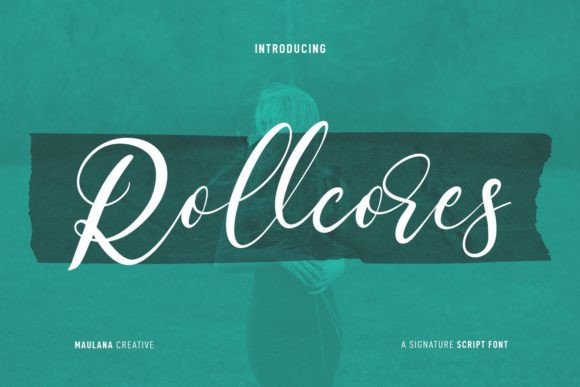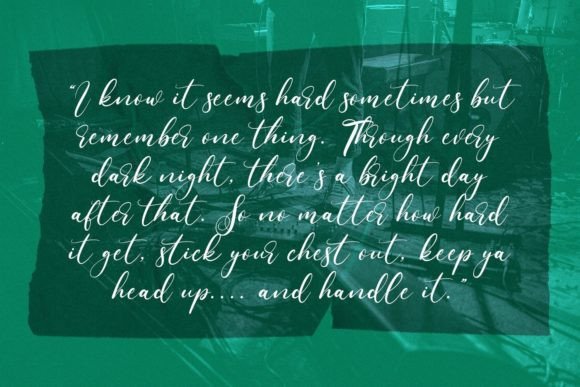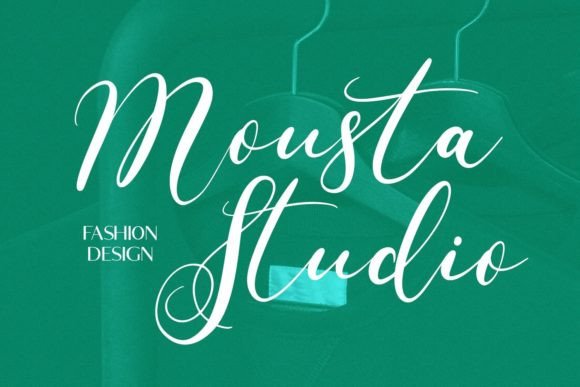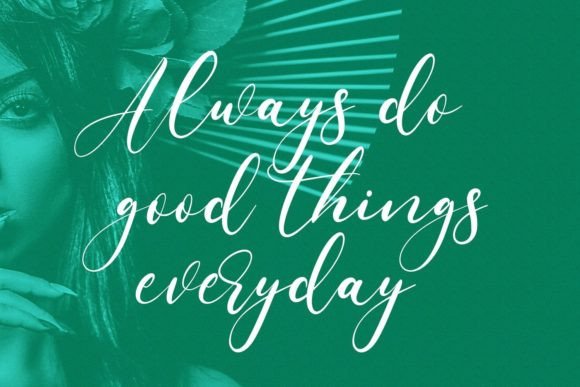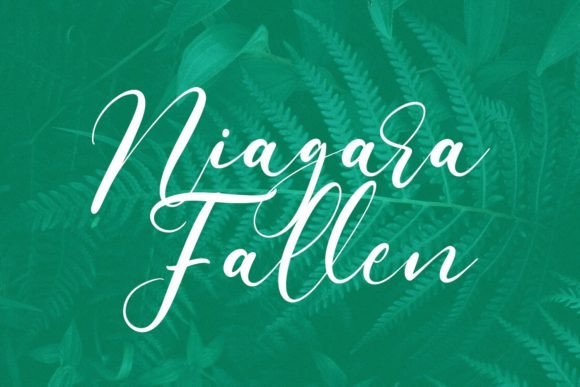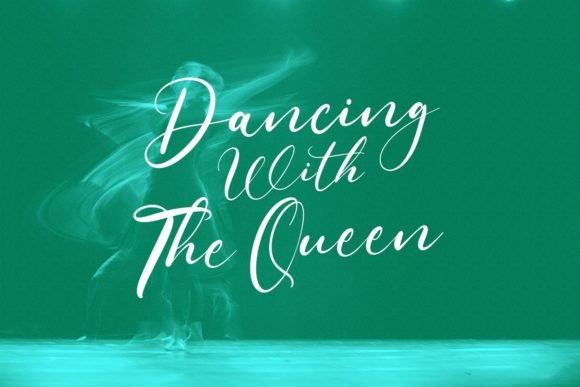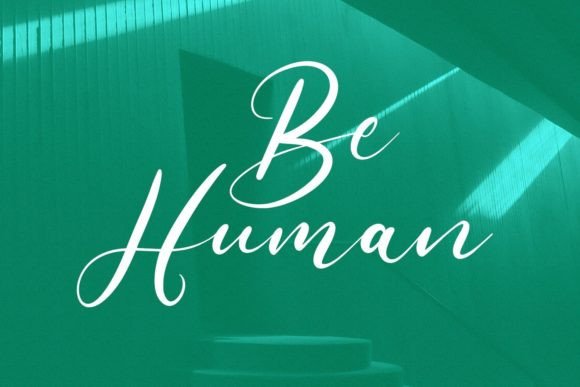
Rollcores Font
About Rollcores Font
“Rollcores” is a dazzling and intricately detailed script font that exudes romance and loveliness. Its ornate and elegant design makes it a perfect choice for love letters, wedding invitations, or any favorite design ideas you wish to elevate. Adding this font to your projects will undoubtedly astound you with the exquisite outcome it brings.
The font’s intricate details and romantic aesthetic create a sense of elegance and sophistication. When used in love letters, “Rollcores” enhances the emotional impact of the words, making the message even more heartfelt and meaningful. In wedding invitations, the font adds a touch of timeless beauty, setting the tone for a romantic and memorable celebration.
“Rollcores” is designed to captivate and enchant, making it an ideal choice for projects that require a touch of romance and sophistication. Its detailed and lovely-looking letterforms create a visually stunning effect, making your designs stand out and leave a lasting impression on anyone who sees them.
Embrace the romantic charm of “Rollcores” in your love letters, wedding invitations, or any other design ideas that require an extra dose of elegance. Let its dazzling and detailed script enhance the beauty of your projects, creating a truly mesmerizing outcome that captures the essence of romance and love.